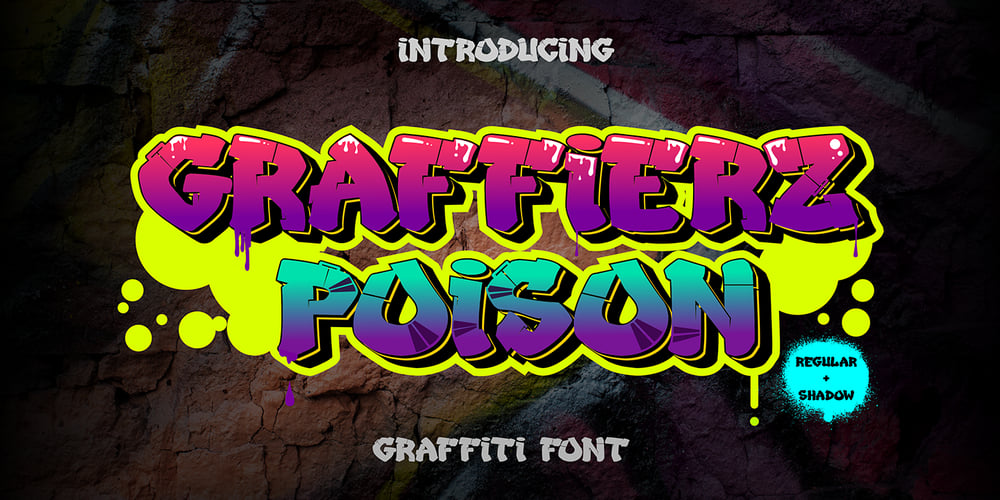
Graffierz Poison Graffiti Font Family was designed by Sipanji and published by Sipanji21. Graffierz Poison Graffiti contains 2 styles and family package options. Graffierz Poison is an urban graffiti font characterized by sharp edges and a bold look. Ideal for music posters, apparel designs, shirts, and streetwear, this font brings a touch of edginess to your projects. The unique style of “Graffierz Poison ” makes it the perfect choice for death metal or urban graffiti themes. Whether you want to create a strong and powerful statement or simply add a touch of attitude to your designs, “Graffierz Poison” is the font for you.